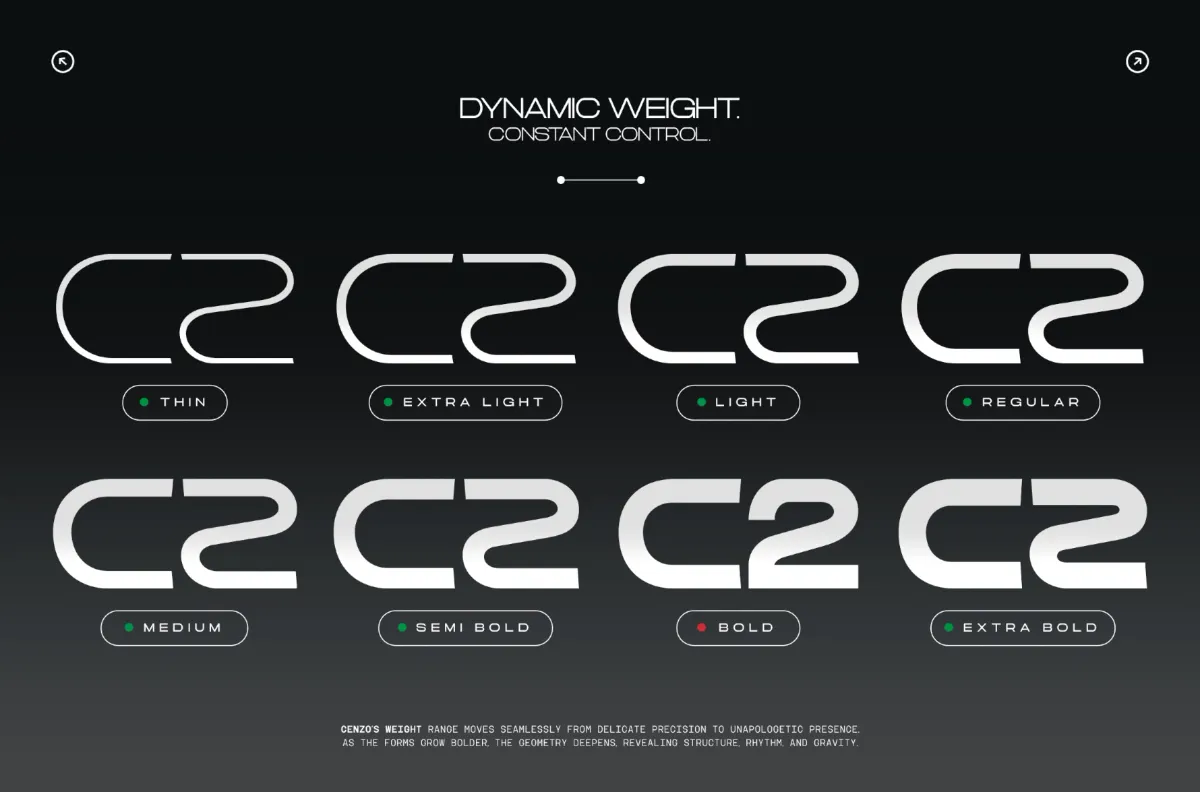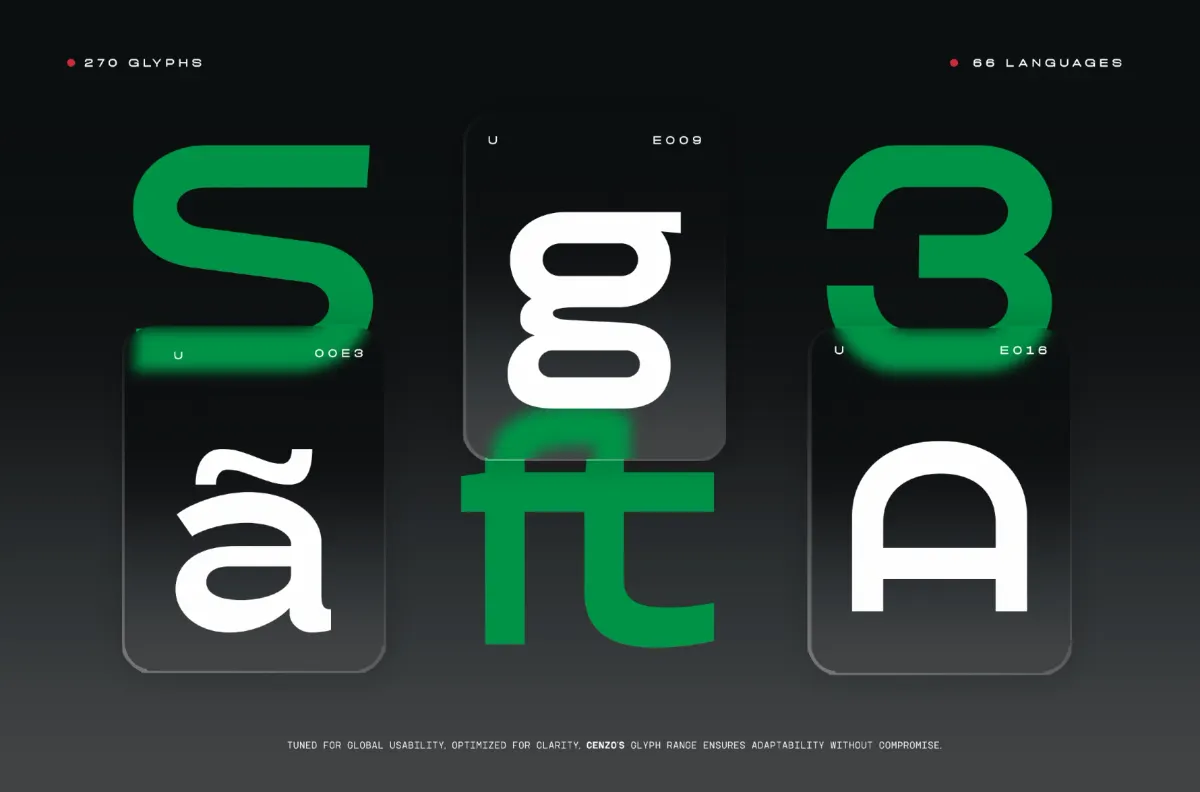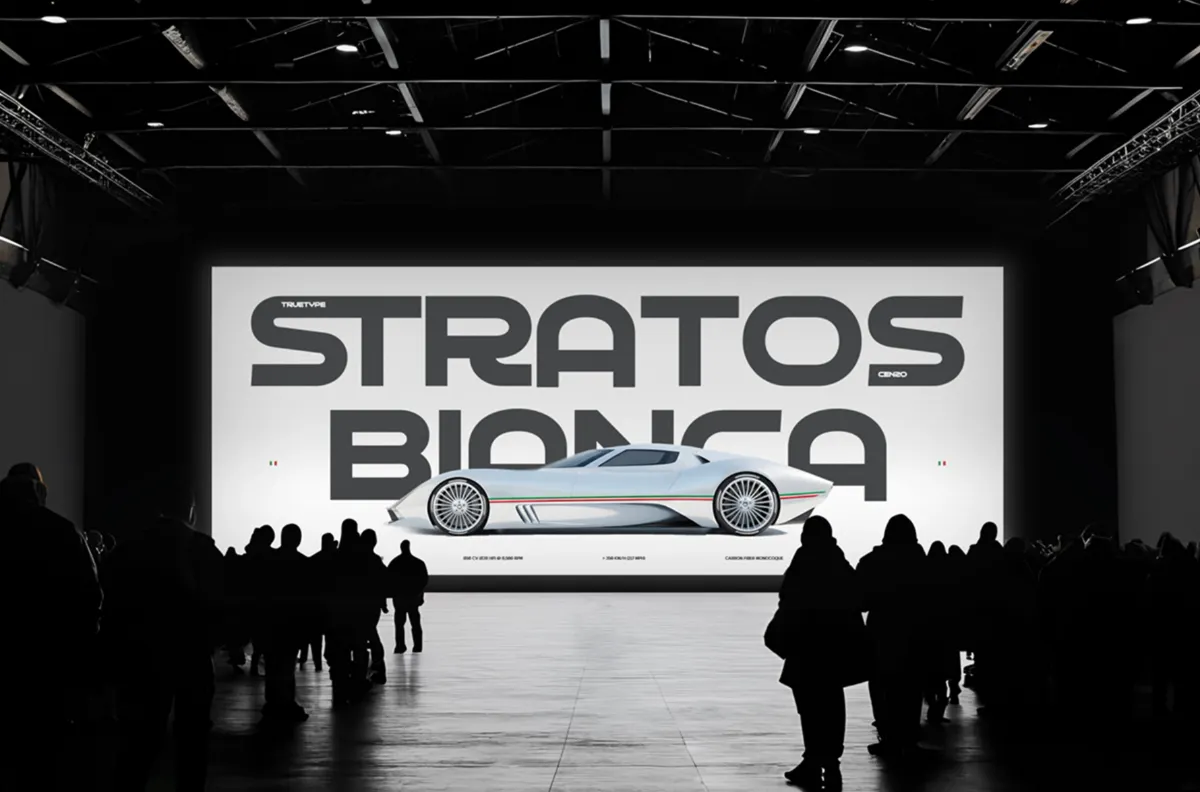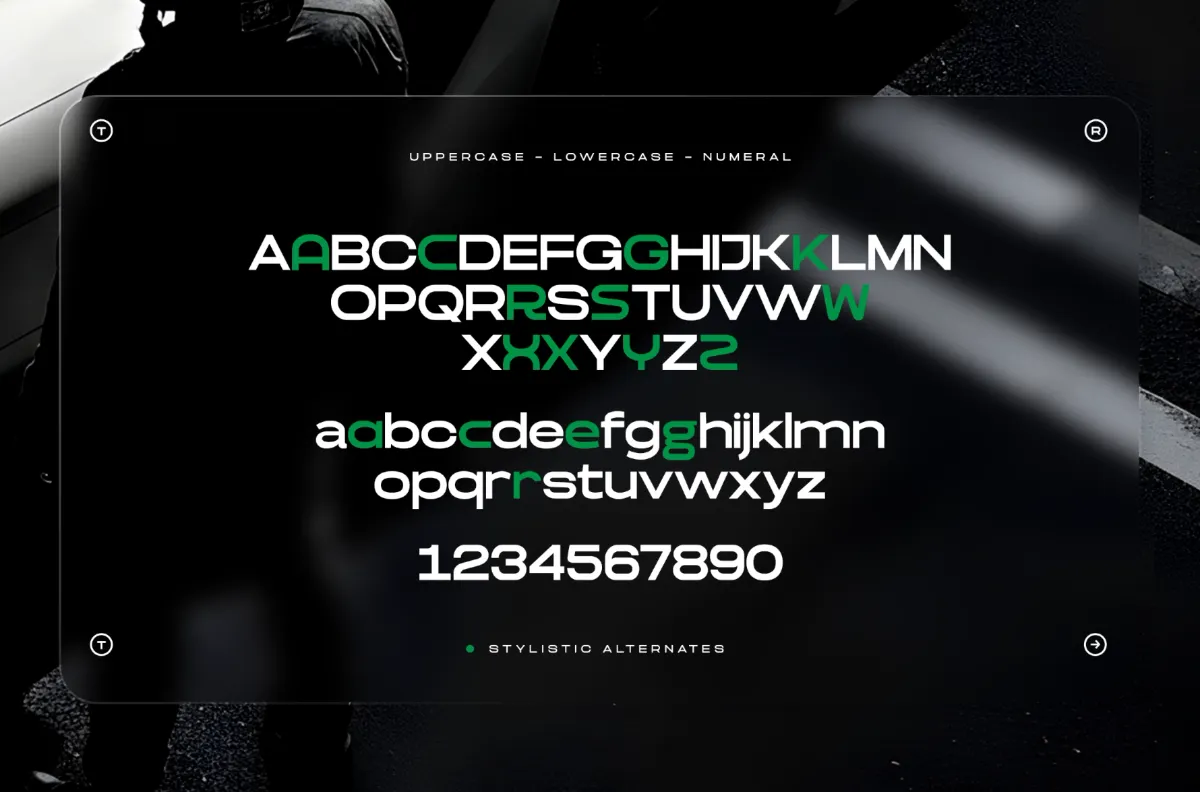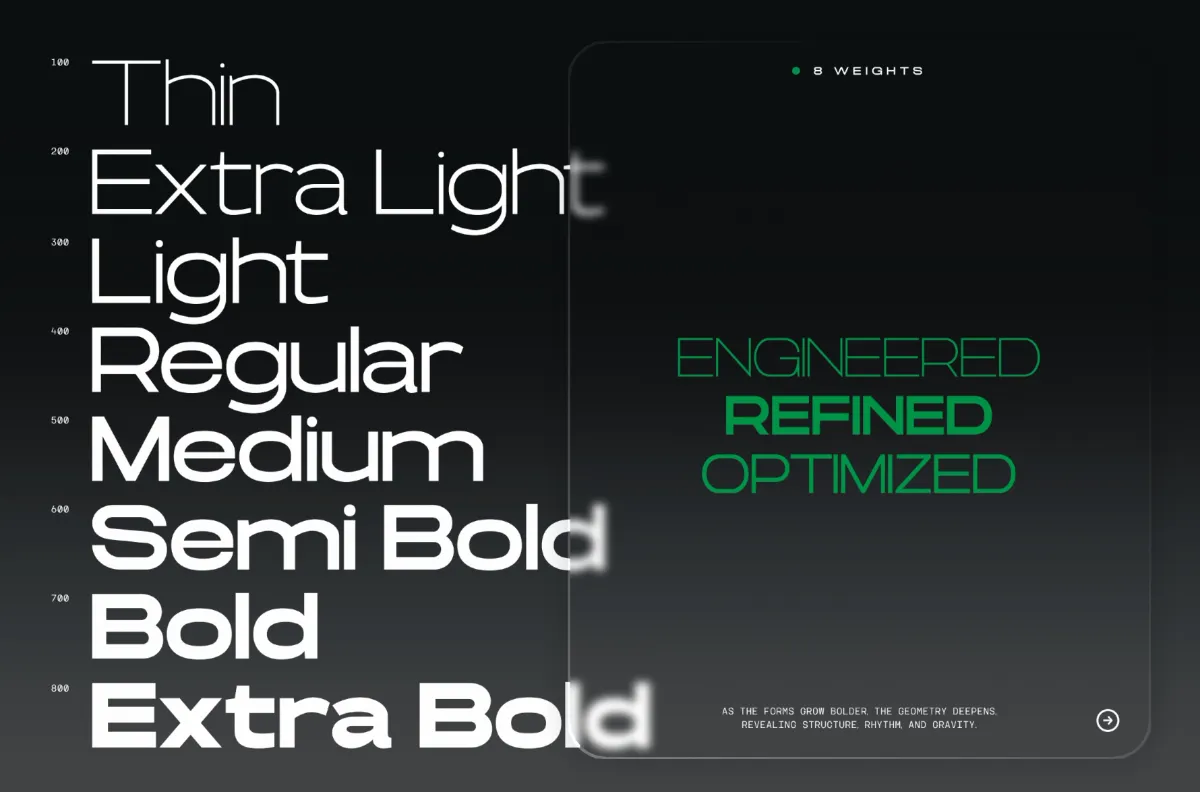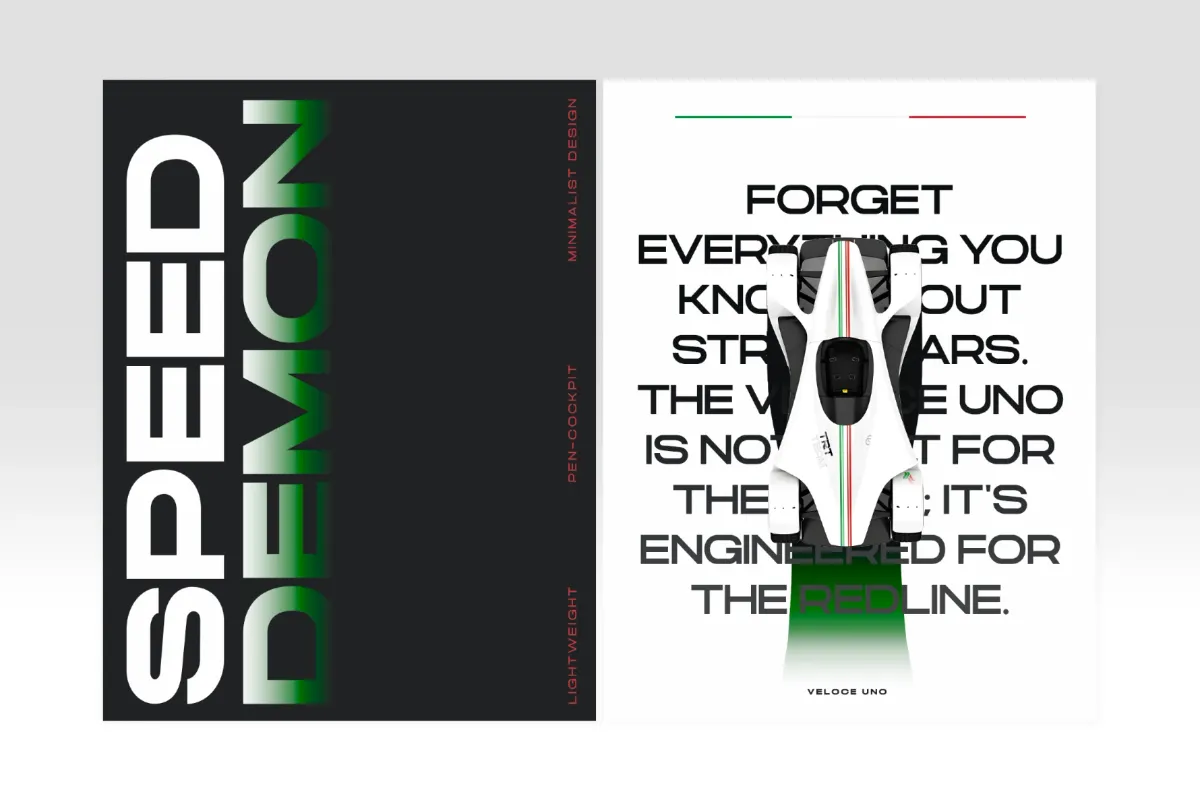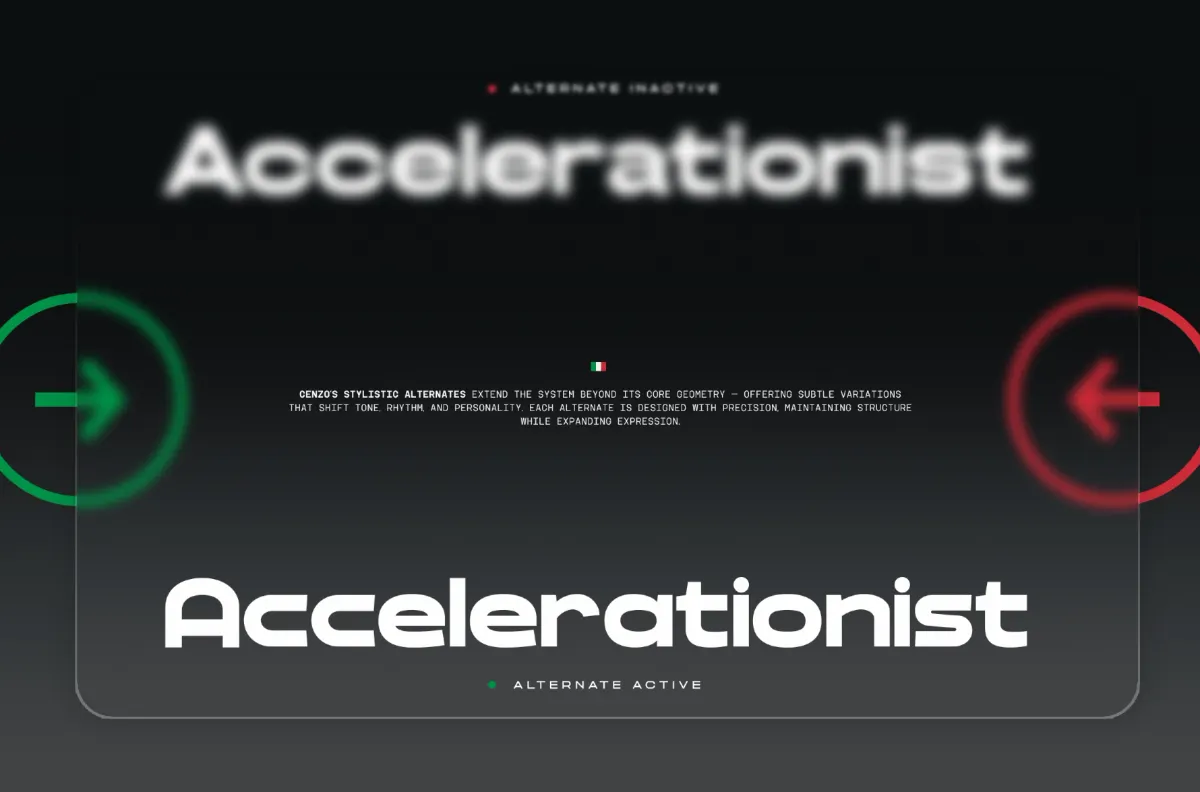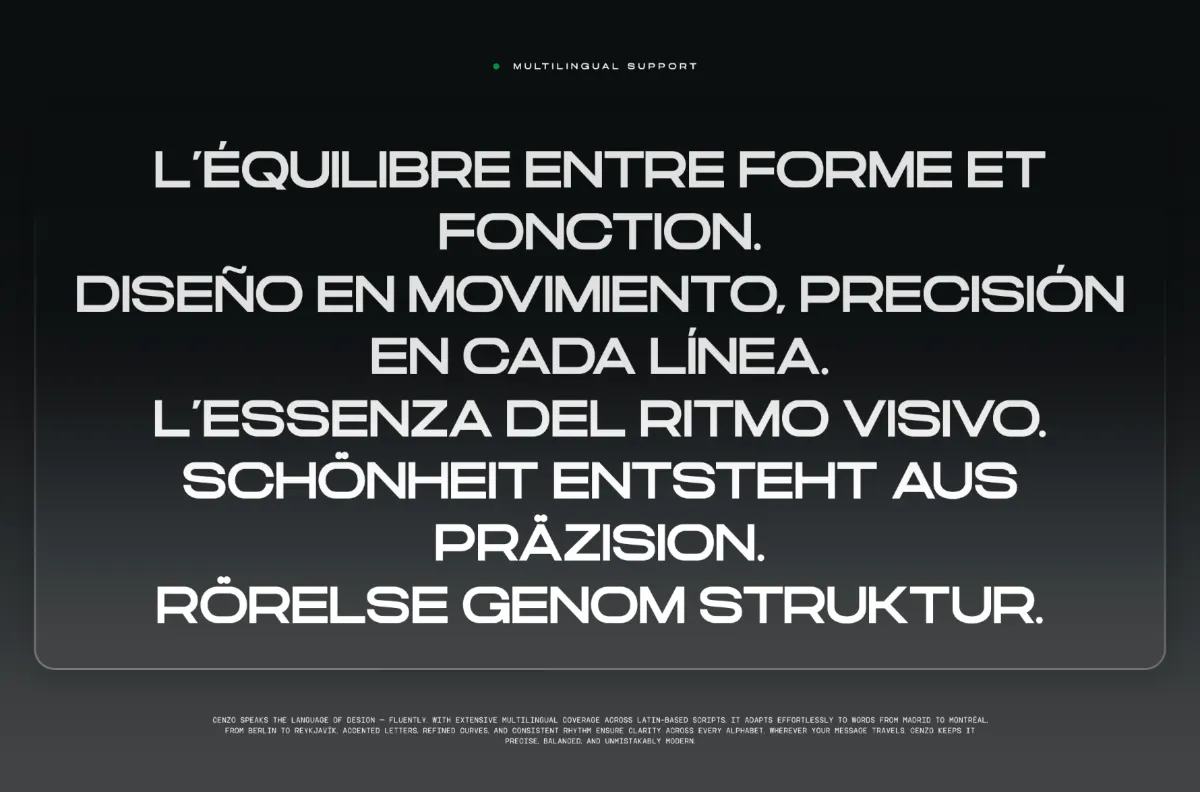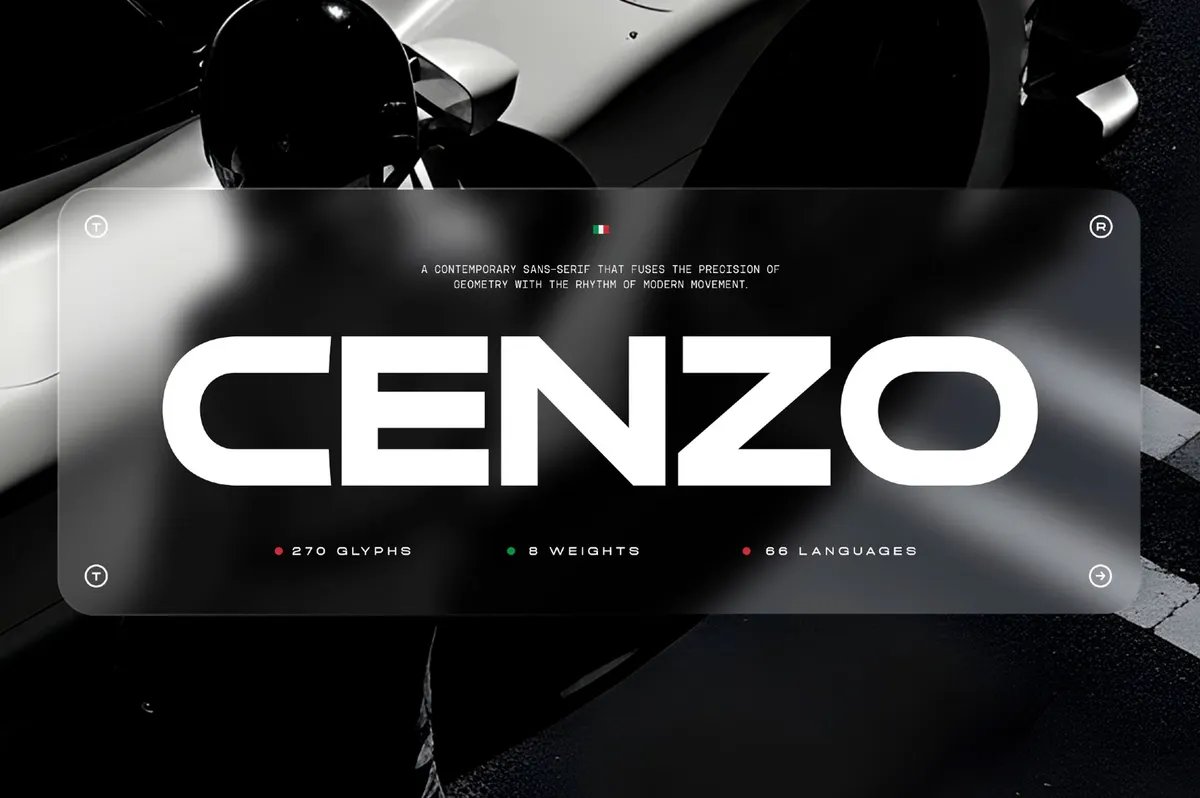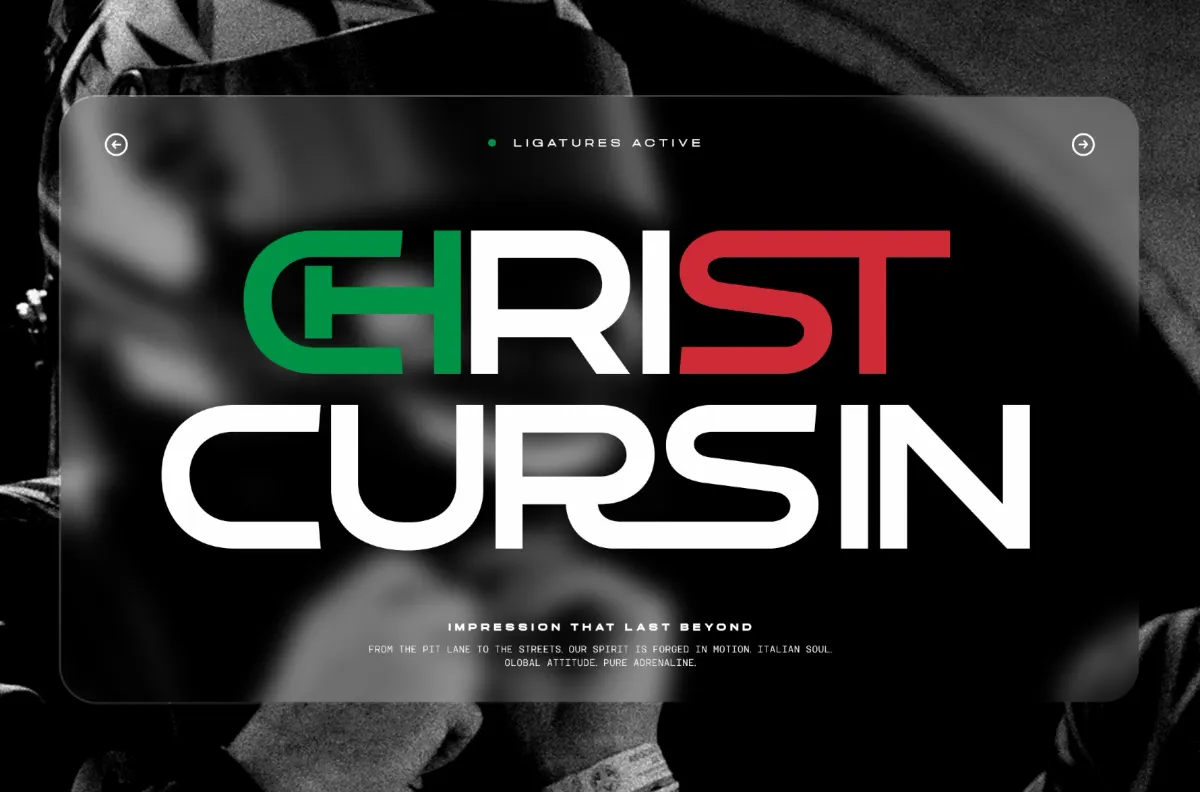
TRT Cenzo - Modern Futuristic Sans Font
Cenzo takes the bold geometry of classic modernist letterforms and sharpens it — subtle angled cuts at the terminals, tight counters, a rhythm built for speed rather than warmth. Eight weights carry that same forward-leaning structure from a fine Thin to a dense Extra Bold without losing readability at small sizes.
Alternate forms on more than a dozen characters open up sharper, more angular variants for headlines, while standard ligatures keep the tighter letter pairs clean. It holds up in branding, display titles, interfaces, and editorial layouts that want a sleek, technical edge.
- Uppercase & Lowercase, numerals, punctuation & symbols;
- Stylistic alternates across 16 characters, standard ligatures, fractions, ordinals, superscript figures, kerning;